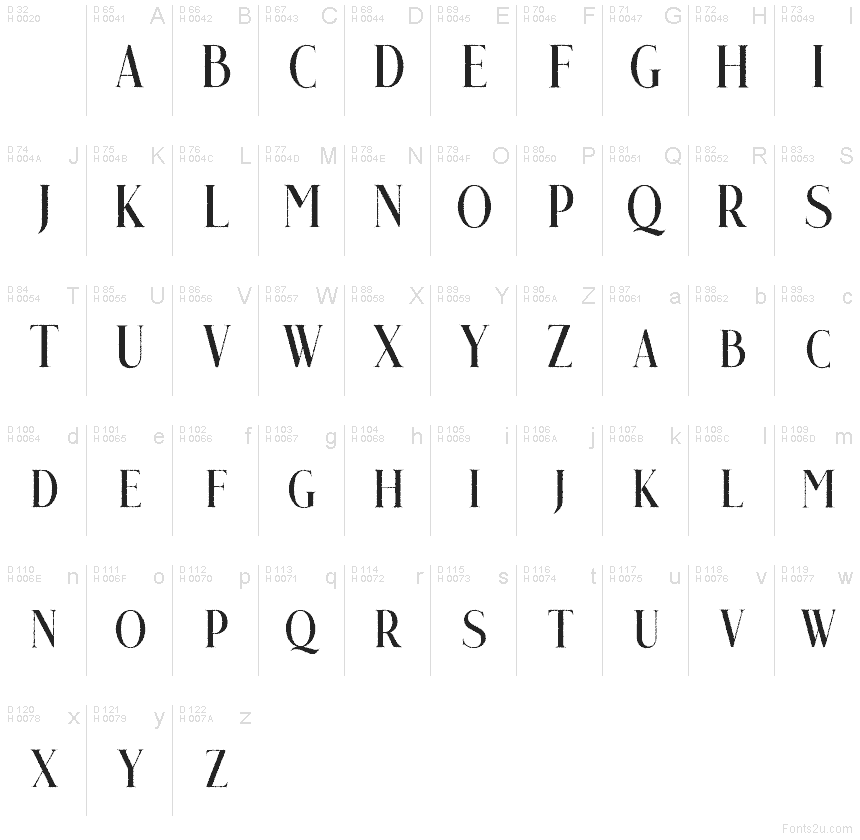
Qualey Rough Regular Demo
Qualey Rough font is a condensed serif typeface by Craft Supply Co. that perfectly balances elegance and sophistication. Classic letterforms with historical influences are present in the font which adds up to its overall charming ambiance. Ideal for headlines and text, this resource combines beauty with functionality.
With a free license available, designers may use this font for business cards, typography art, books, magazines, fashion branding projects, quotes: you name it! Applying it to the logo design will personalize brand marks of cosmetic brands or elegant clothing collections while securing them a recognizable visual identity instantaneously.